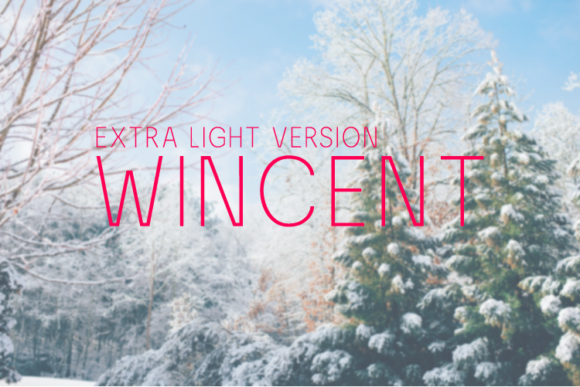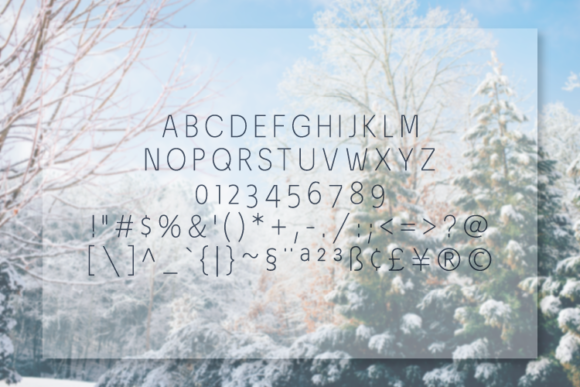
HomeSans Serif FontsWincent Extra Light Font Sans Serif Fonts Wincent Extra Light Font FacebookXPinterestWhatsApp Wincent Extra Light Font 1 of 2 About Wincent Extra Light Font Wincent is a geometric font family with an incredibly simple and elegant style. It features soft terminals and will give any design project a friendly and expressive look! DOWNLOAD NOW People also explored Ashifa Font Casablanka Font Fall Feels Font Gottera Font Adelwish Font Sunrise Font Solace Font Sometime Font Meighan Script Font 312 0 TagsWincent Extra Light Font Previous articleWincent Light FontNext articleWincent Thin Font LEAVE A REPLY Cancel reply Comment: Please enter your comment! Name:* Please enter your name here Email:* You have entered an incorrect email address! Please enter your email address here Website: Save my name, email, and website in this browser for the next time I comment. Personal Use Free Earwig Factory Personal Use Free Read more about this font BD Console Personal Use Free Read more about this font Laneway Personal Use Free Read more about this font Archipellago Personal Use Free Read more about this font BLOG How to Install and Use Fonts on Windows, macOS, and Web Projects How to Install and Use Fonts on Windows, macOS, and Web Projects Fonts are a crucial part of design and branding. Whether you’re designing a... Top 7 Google Fonts Alternatives for Faster and Privacy-Friendly Web Design (2025) Free Fonts Risk: Why Free Fonts Can Be Dangerous for Designers Using Fonts in Digital Marketing: Tips to Strengthen Your Brand Identity